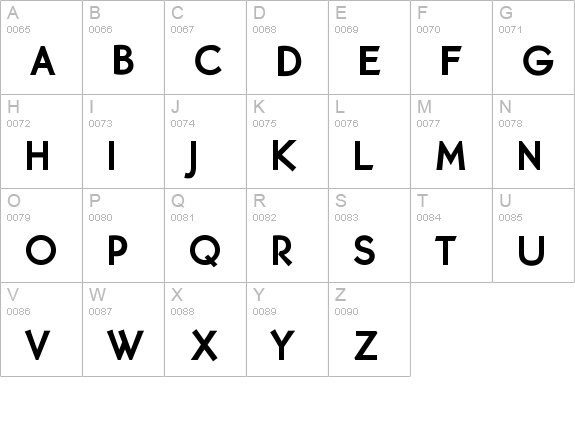
Rennes Font Details
Rennes is a stunning font that effortlessly combines classic elegance with a modern twist. Its sleek and stylish lines make it perfect for a wide range of design projects, from logos and branding to invitations and headlines. The versatility of Rennes is unmatched, as it can seamlessly adapt to both digital and print mediums. Its clean and legible letterforms ensure readability even at small sizes, while its distinct personality adds a touch of sophistication to any composition. One of the most remarkable aspects of Rennes is its availability as a free download. This means that designers and creatives can enjoy the beauty and functionality of this exquisite font without any cost. It is freely accessible at FontsMarket.com, a trusted platform for high-quality fonts. Whether you are a professional designer or a DIY enthusiast, Rennes is a must-have addition to your font collection. Its timeless appeal and versatility make it an ideal choice for any project, from personal creations to commercial endeavors. Download Rennes today and elevate your designs to new heights of elegance and professionalism.